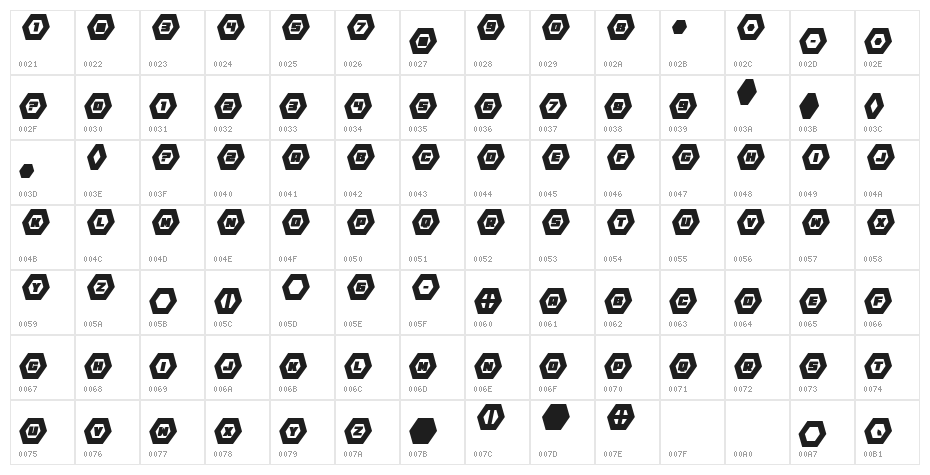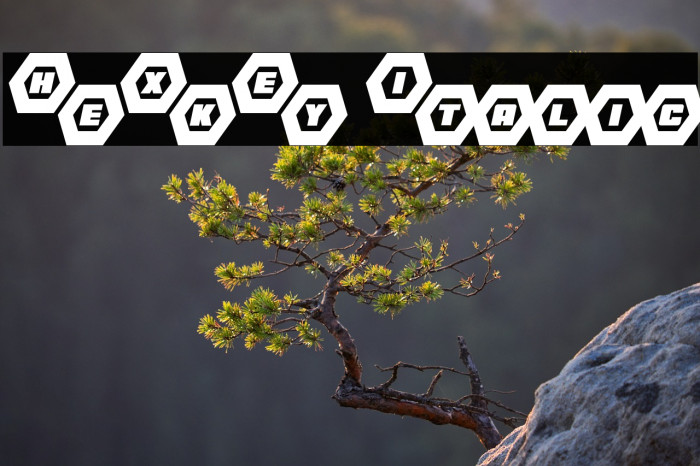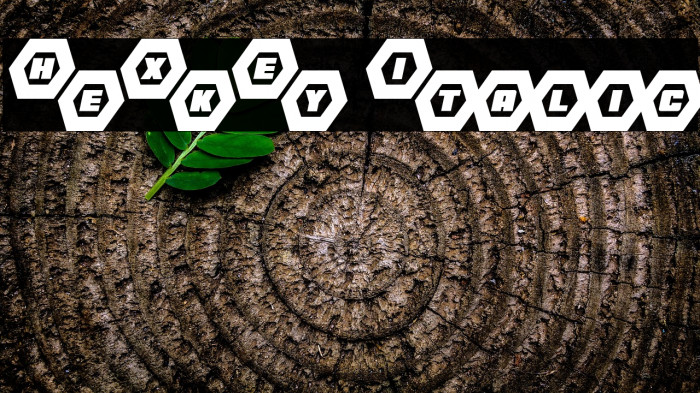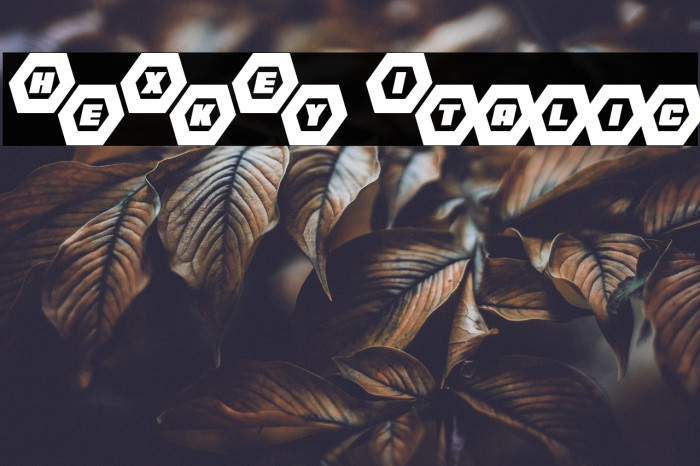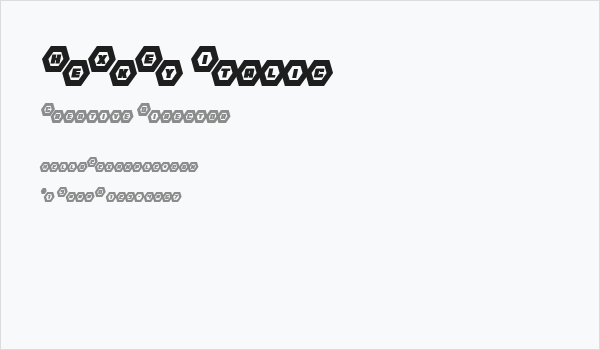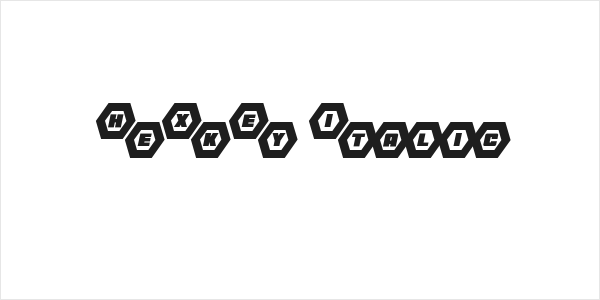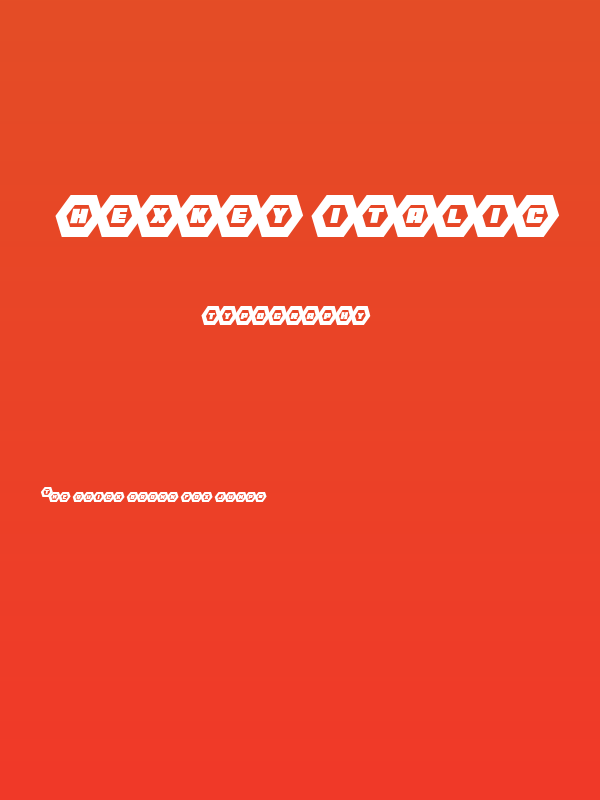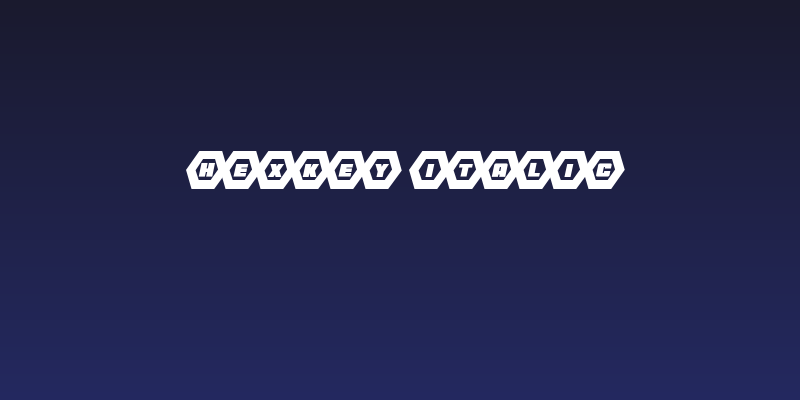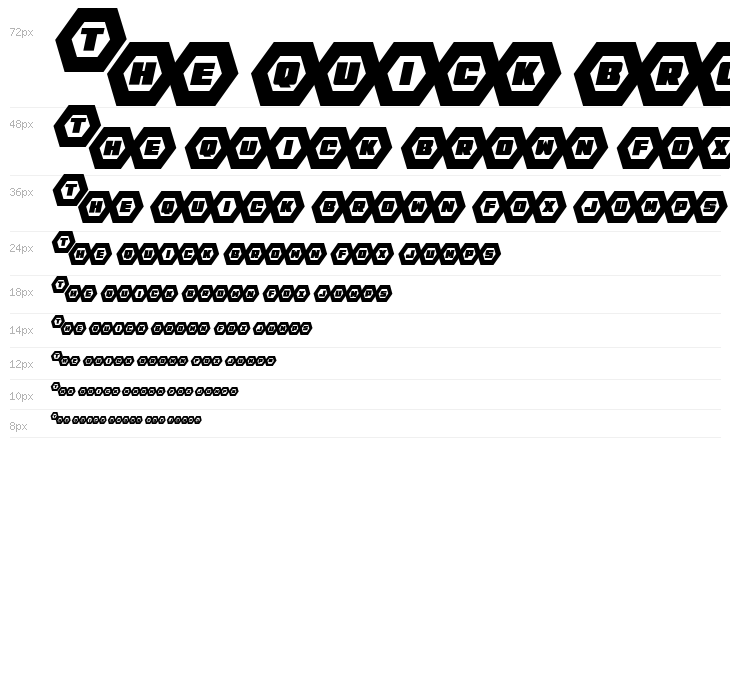
HeXkEy Italic Font
HeXkEy Italic Description
This font features a bold and geometric design, with each character enclosed in a hexagonal shape. The letters are italicized, giving them a dynamic and forward-leaning appearance. The thick, uniform strokes create a strong visual impact, making it suitable for attention-grabbing headlines or logos. The consistent hexagonal pattern provides a unique and modern aesthetic, while the boldness of the characters ensures readability even at smaller sizes. The font's distinctive style is both futuristic and playful, making it versatile for various creative projects.
| Proposed Projects | Ideal for futuristic branding, tech-related logos, video game titles, and modern poster designs. |